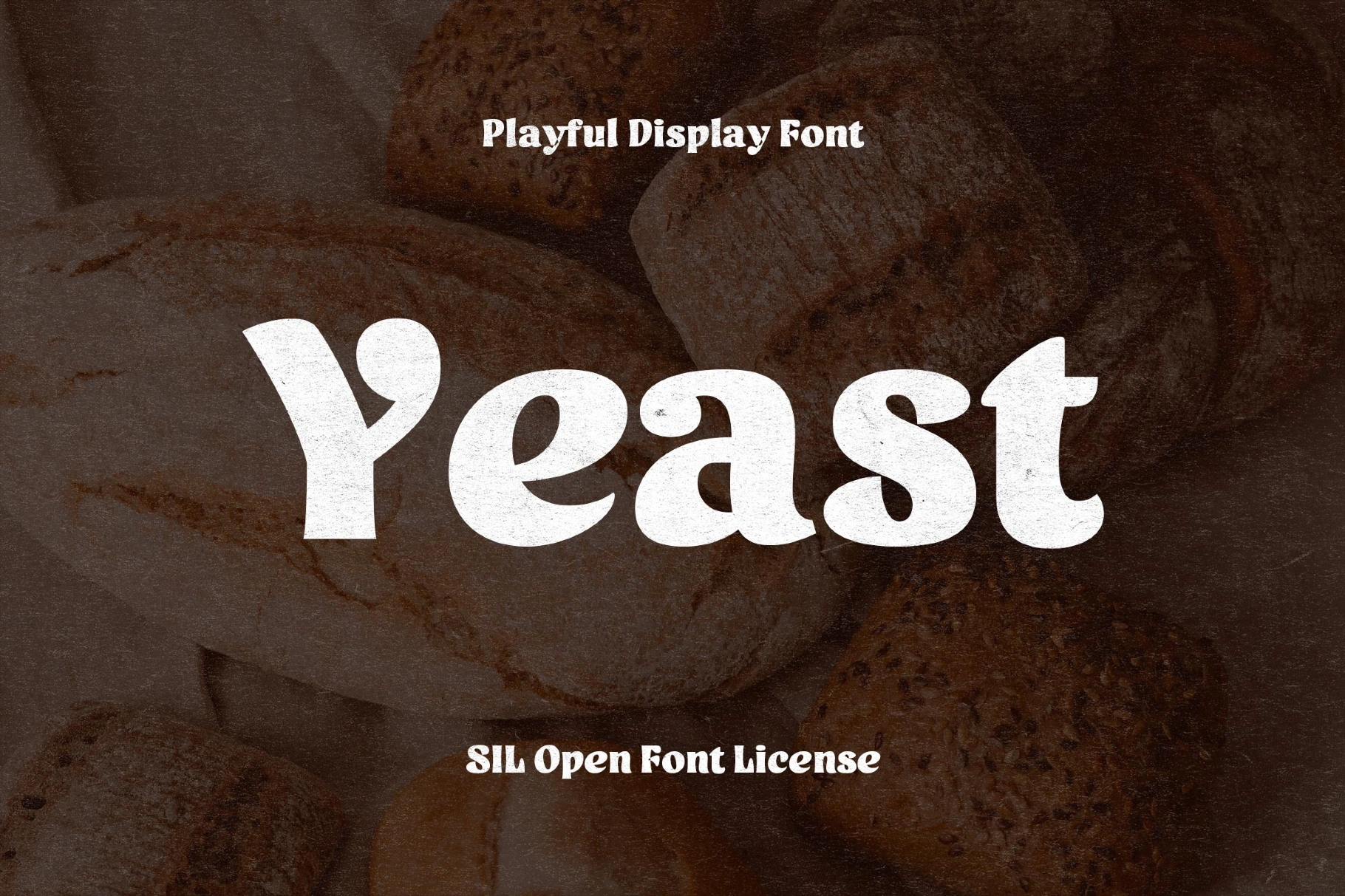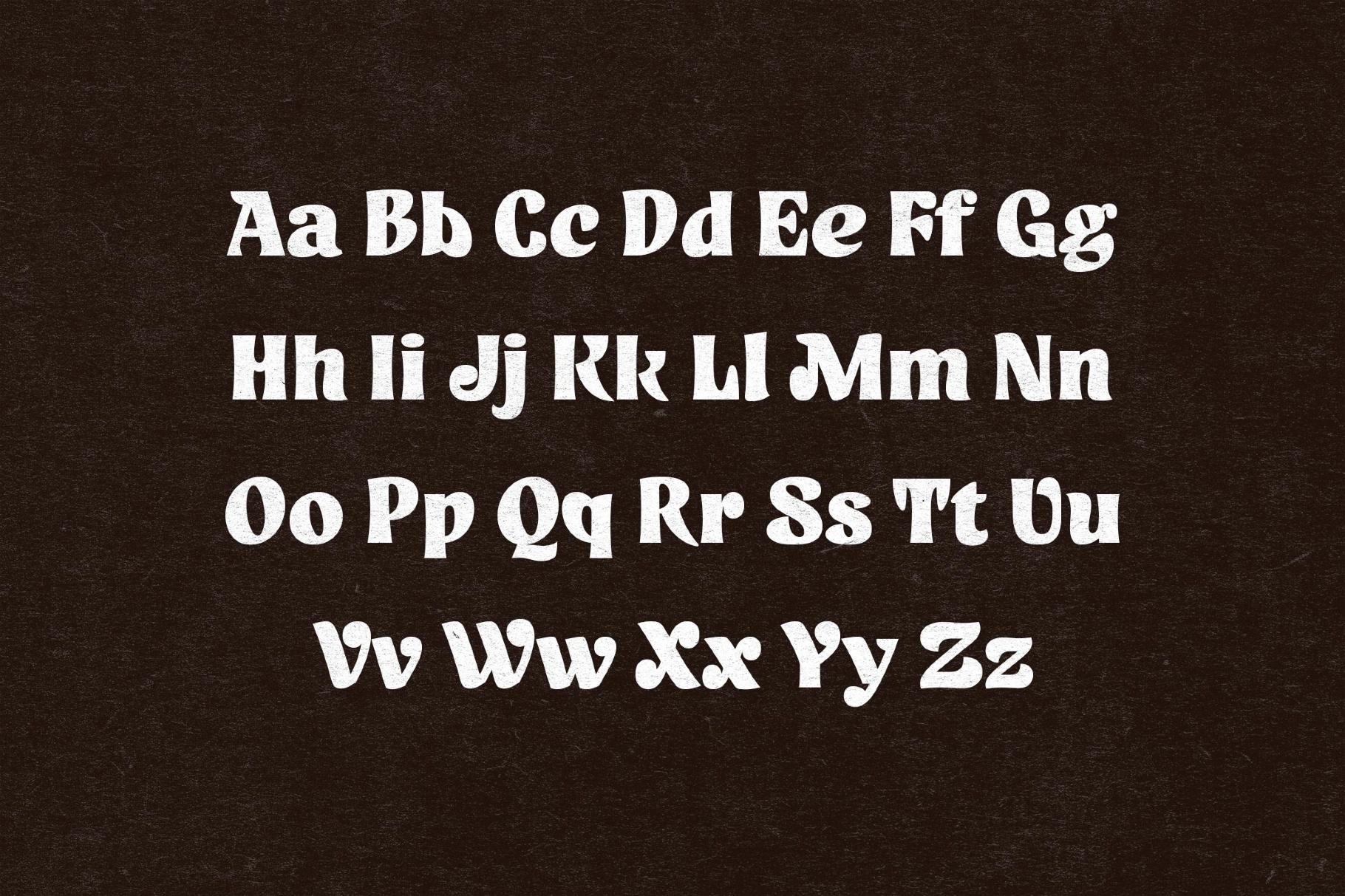
Yeast Font
Yeast
Yeast is a playful display face with bulbous serifs and offbeat curves that recall 1960s poster lettering, hand-cut package labels, and the cheerful eccentricity of Eastern European book design. It fits bakery branding, food packaging, café menus, poster headlines, sticker graphics, logo work, and editorial titles that need a warm, quirky accent.